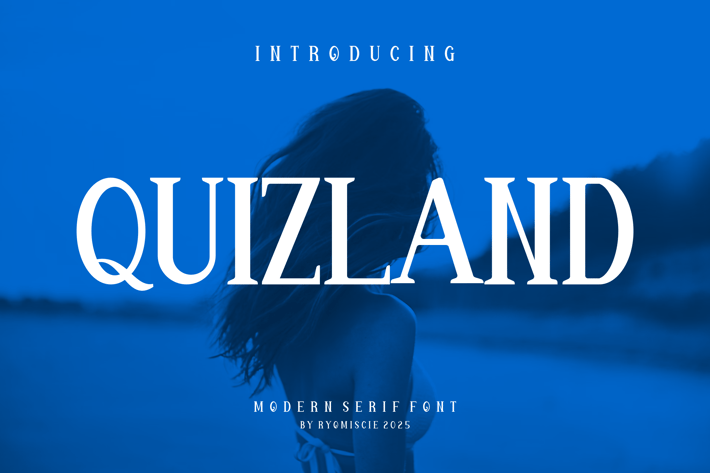
Quizland - Modern Serif Font
Introducing our new product Quizland Font - Modern Serif Font
Quizland Font- Modern Font is a bold and authentic display font. The font is suitable for any branding project like logo,
t-shirt printing, esport, and many more. outstanding in a wide range of contexts.